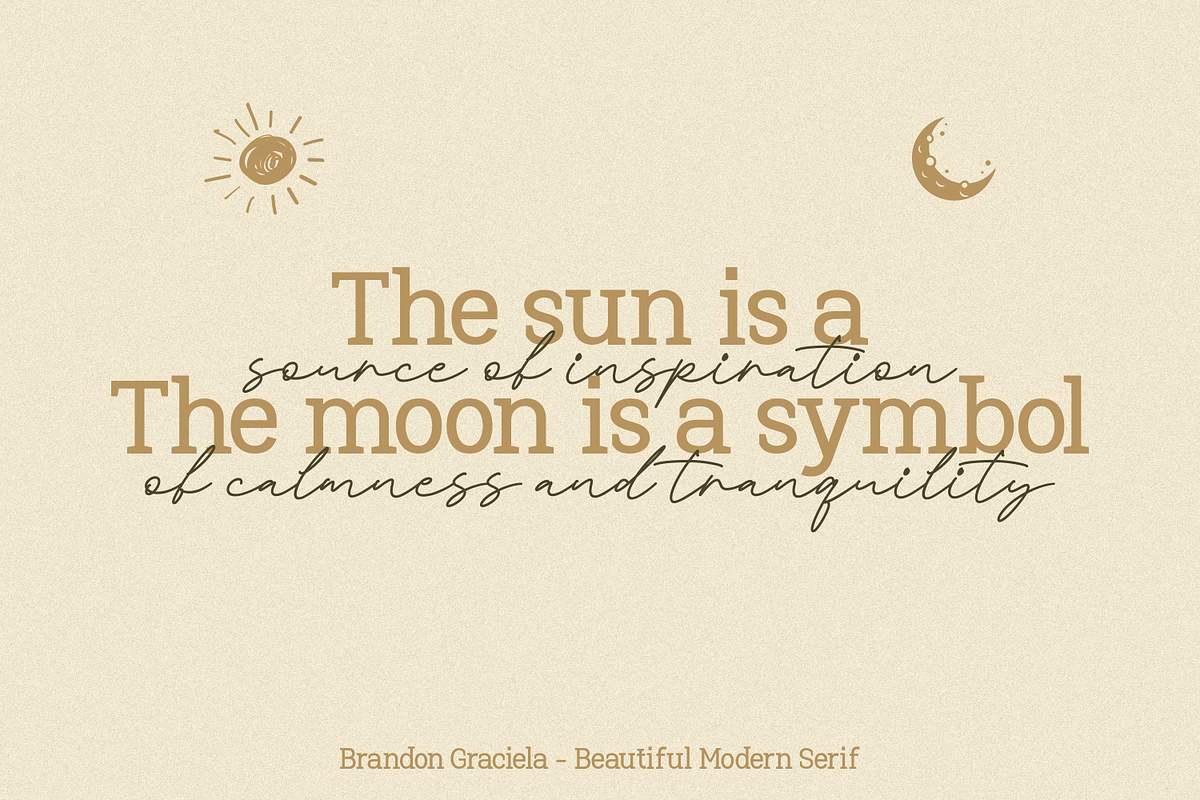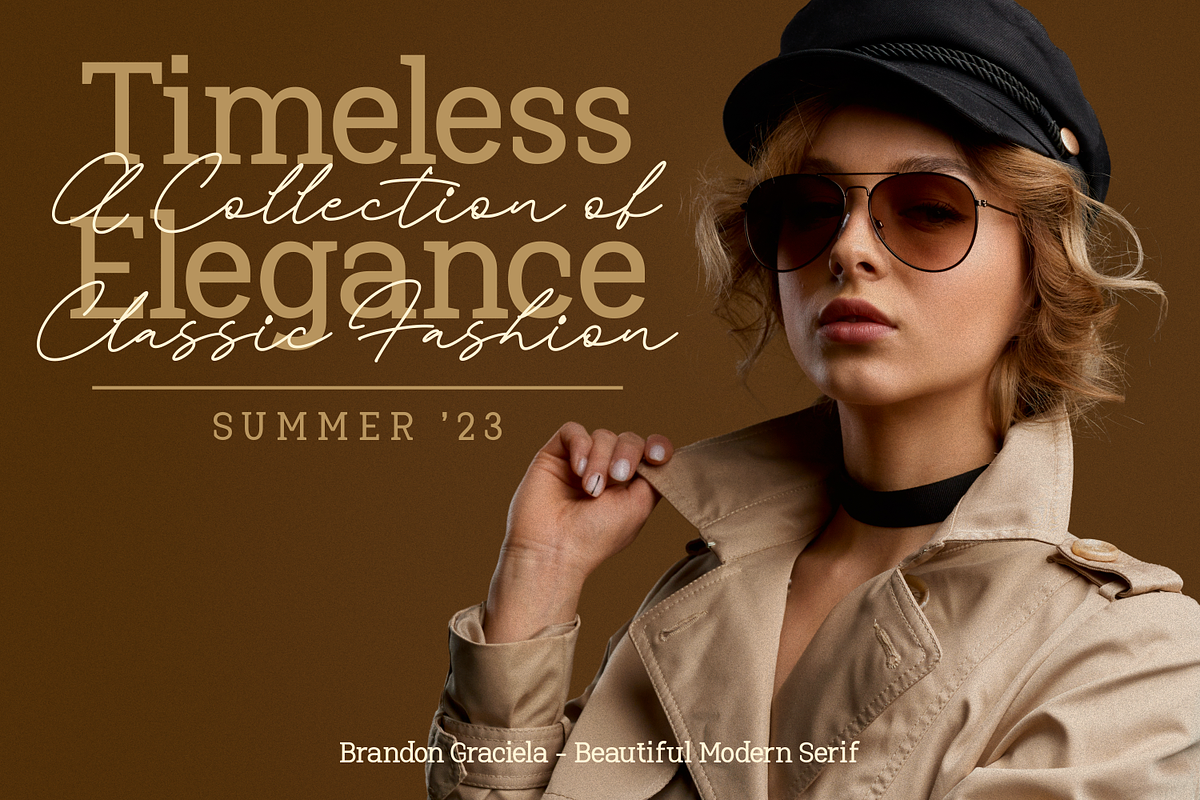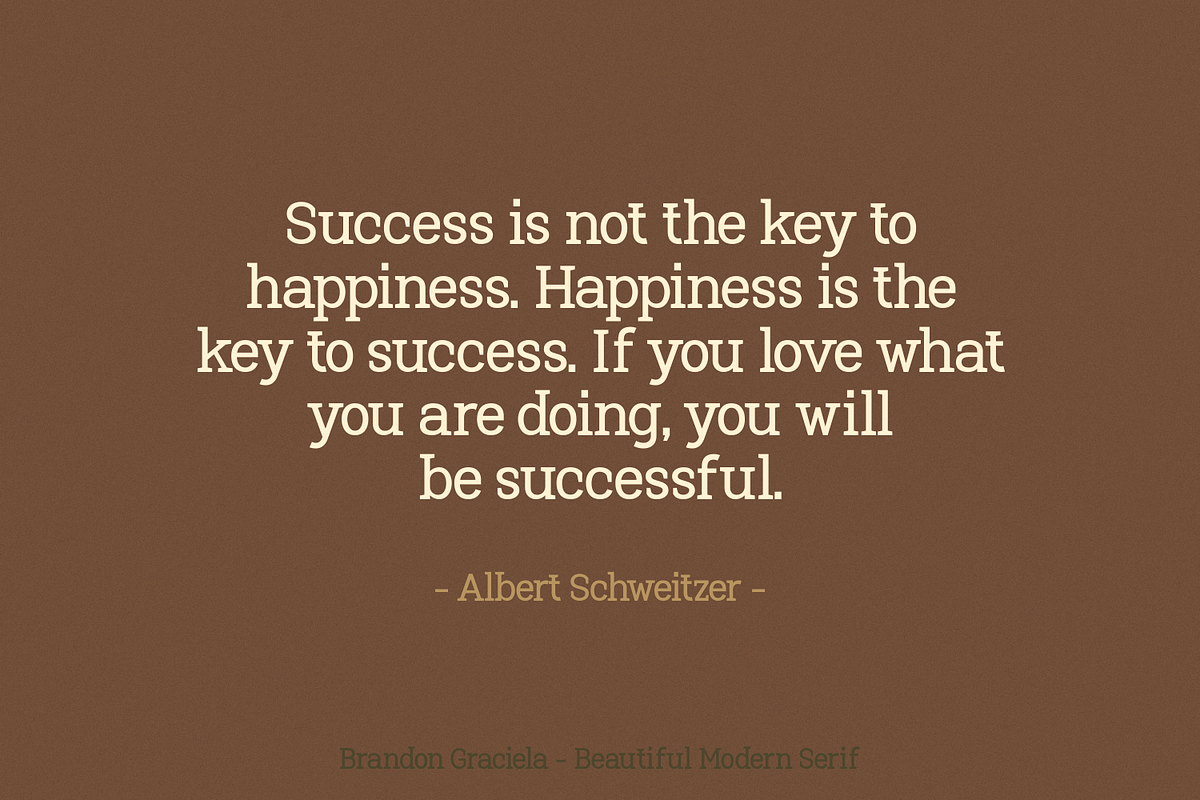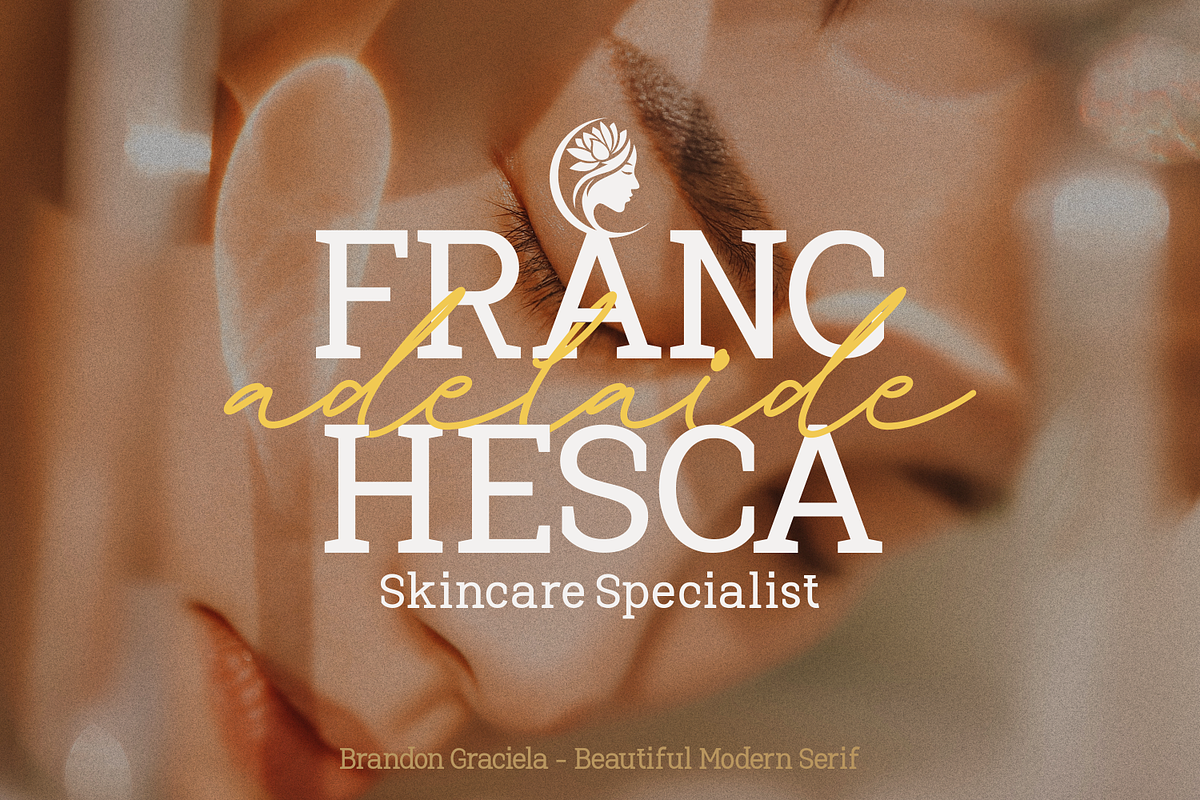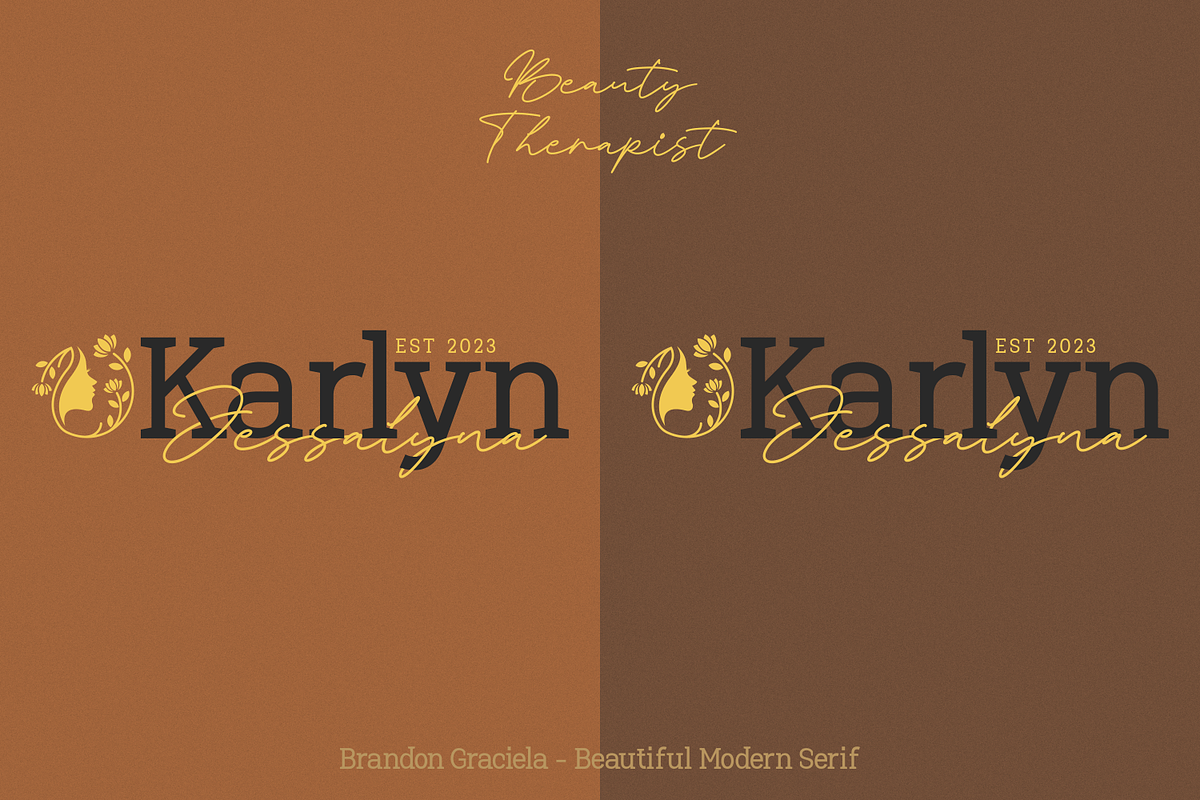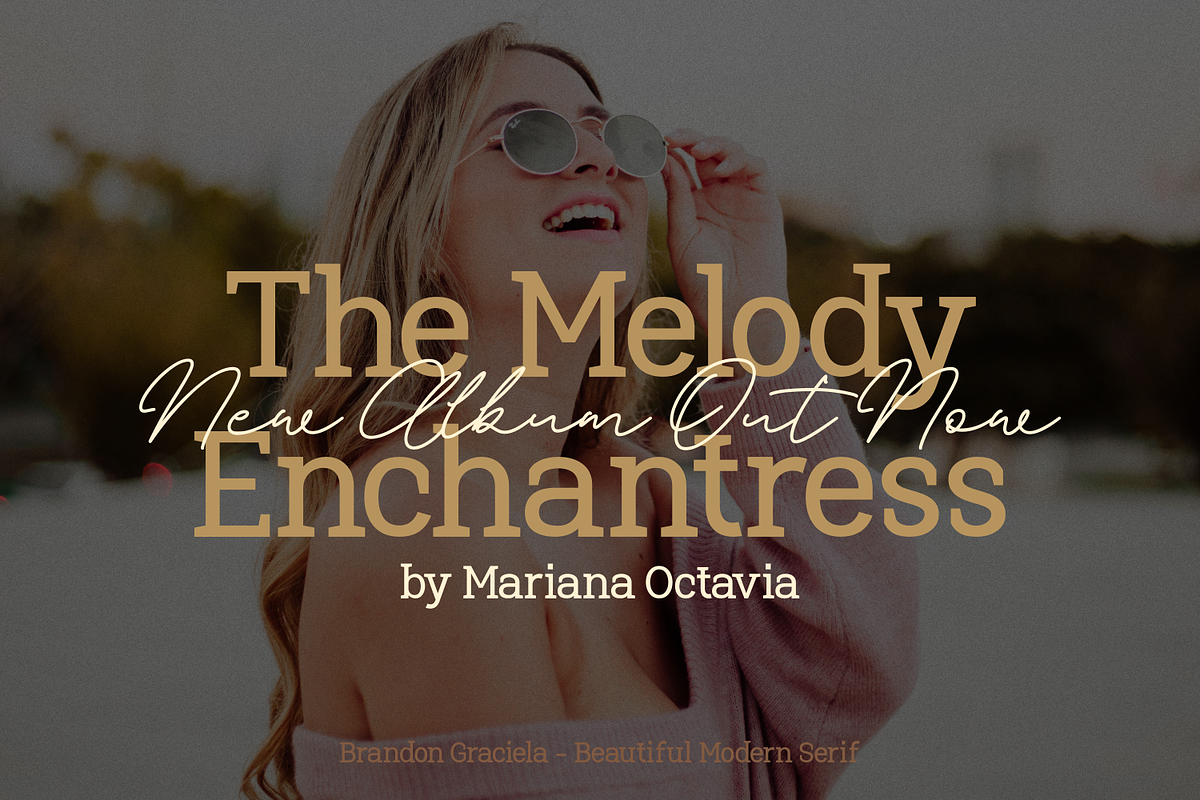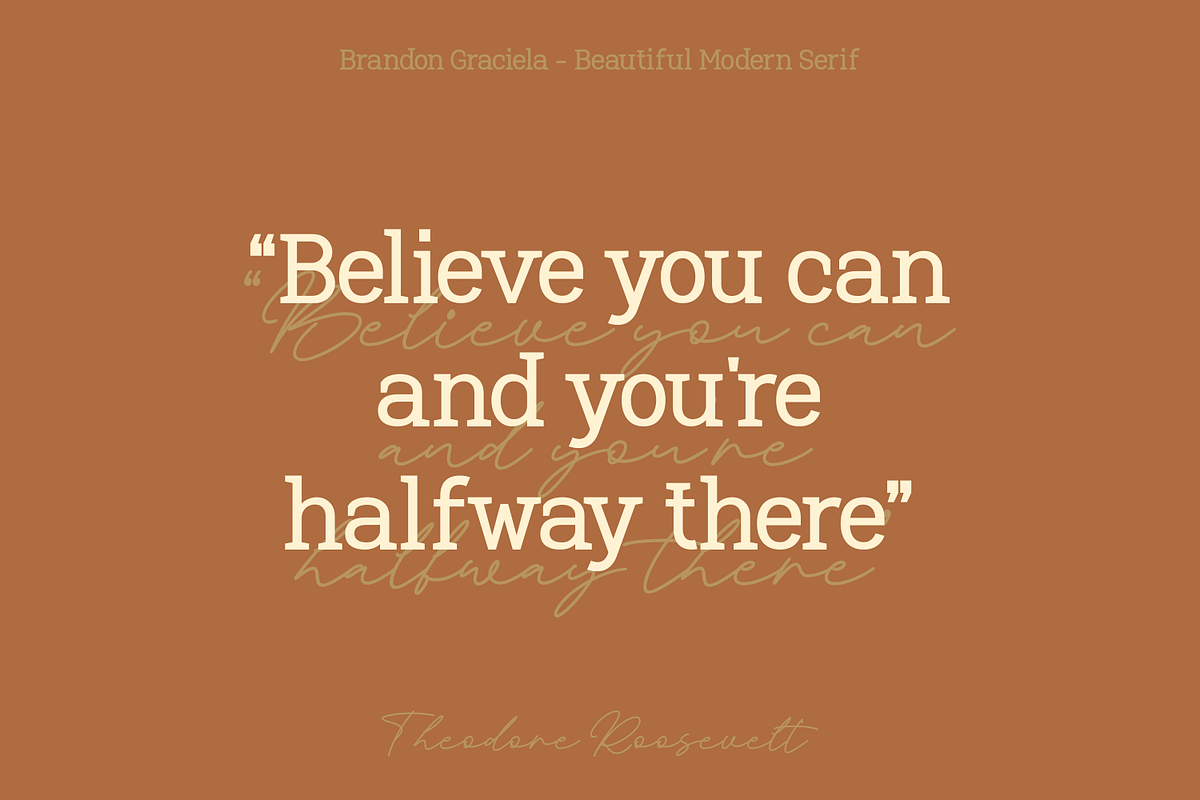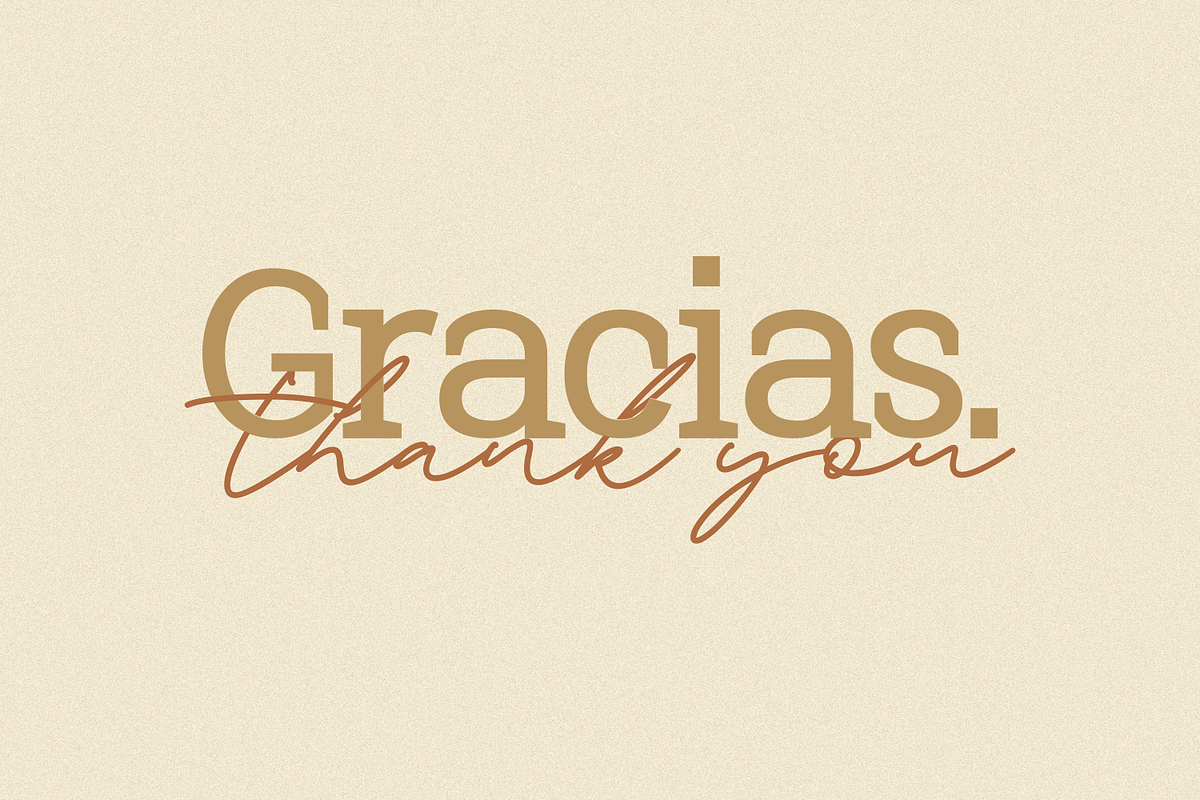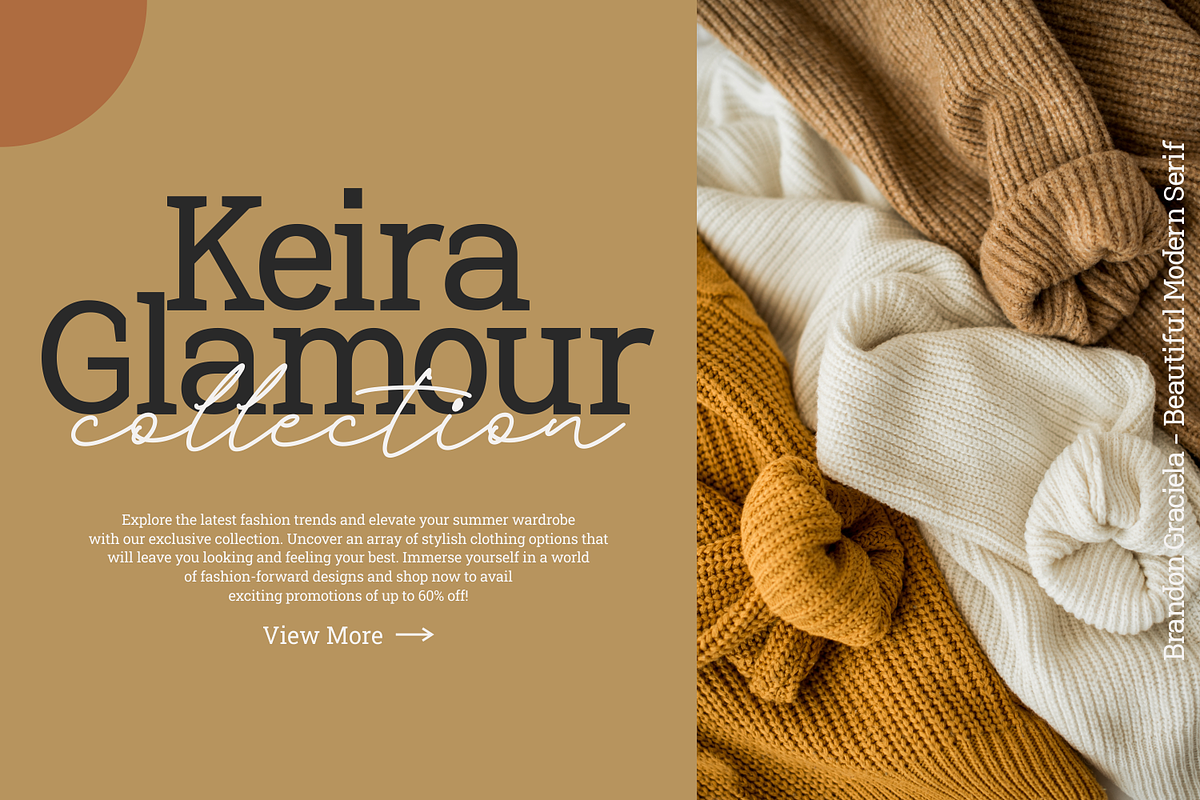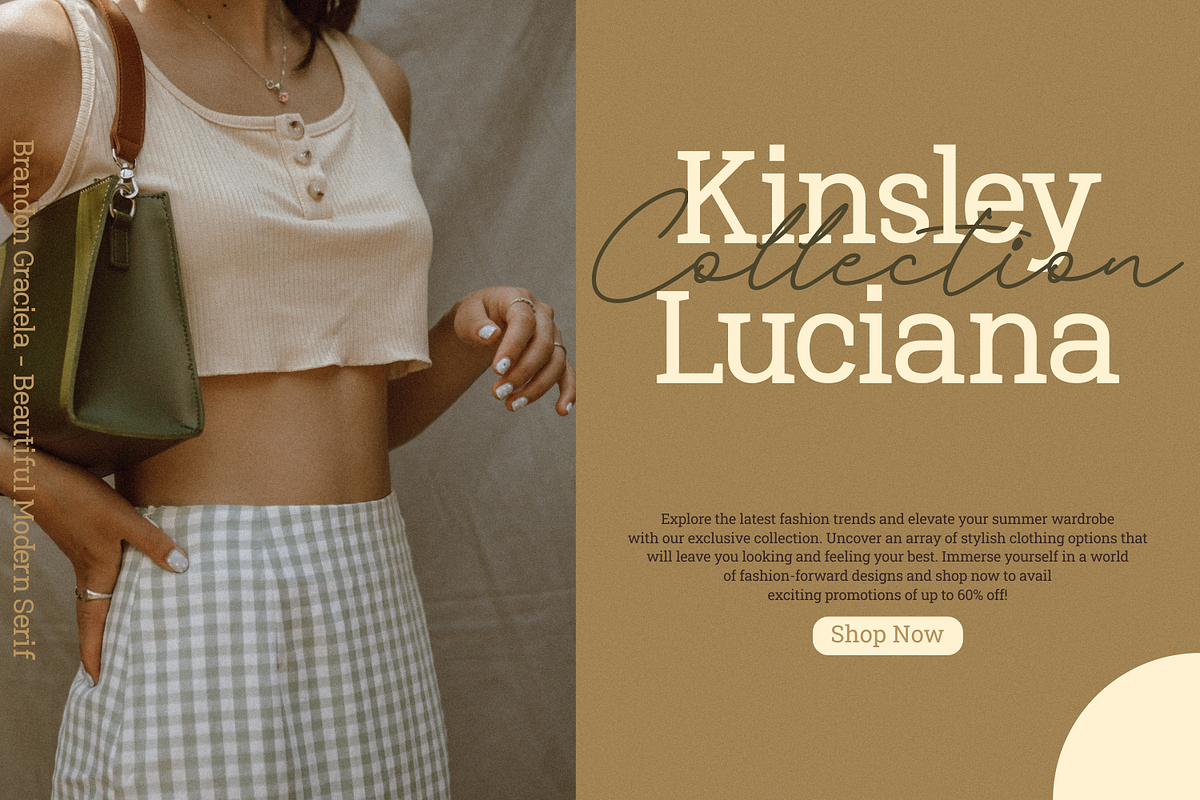
Brandon Graciela
Brandon Graciela is an exquisite and contemporary serif font that seamlessly blends timeless elegance with a modern twist. With its sleek and sophisticated design, this typeface captures attention and adds a touch of refinement to any project. The carefully crafted letterforms exude a sense of balance and harmony, making it a perfect choice for both print and digital applications.
Featuring graceful curves and delicate serifs, Brandon Graciela commands legibility and readability without compromising on style. The clean lines and subtle details of this font create a harmonious rhythm, lending a sense of professionalism and authority to your text. Each character is meticulously crafted, resulting in a typeface that effortlessly conveys a sense of craftsmanship and attention to detail.
Whether used in editorial layouts, branding materials, or website designs, Brandon Graciela stands out as a versatile and beautiful font choice. It exudes a contemporary vibe that appeals to modern audiences while maintaining a timeless appeal that withstands the test of time.